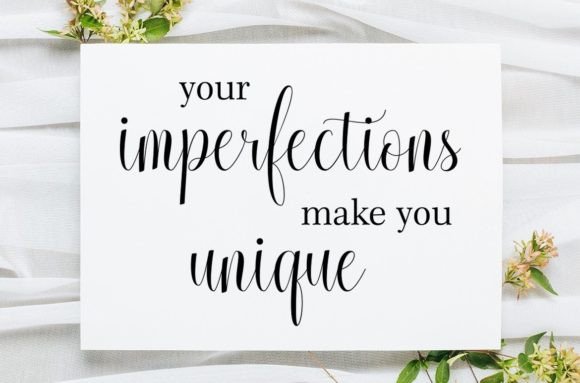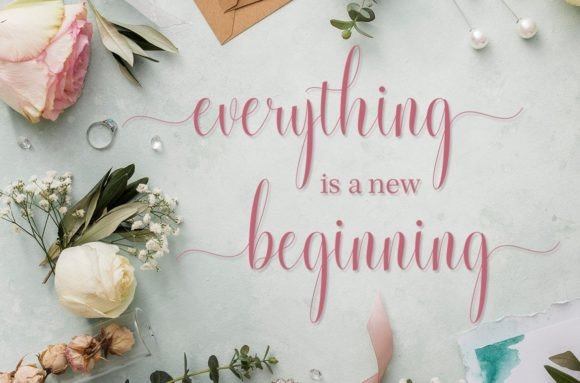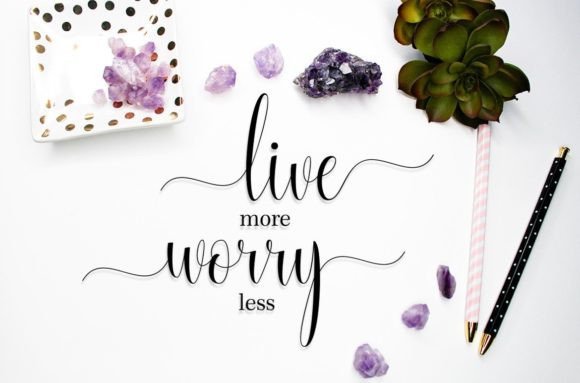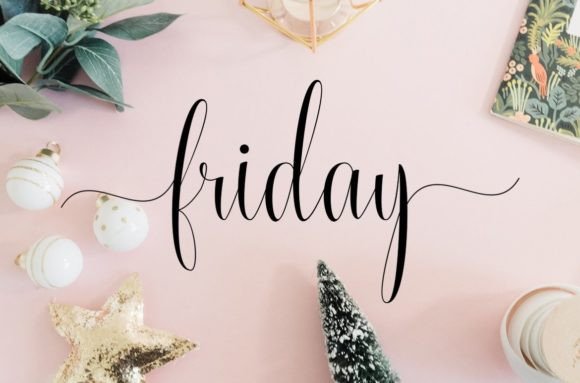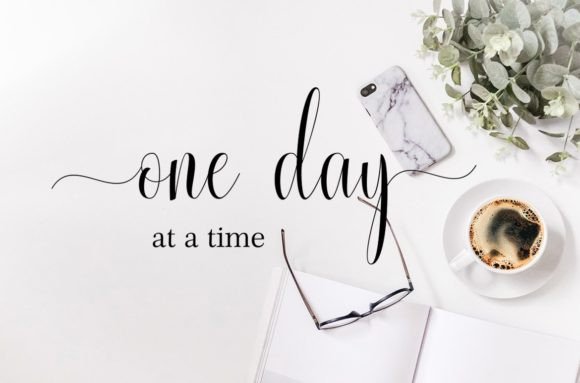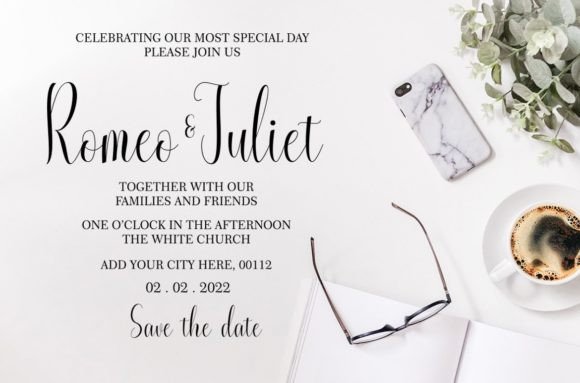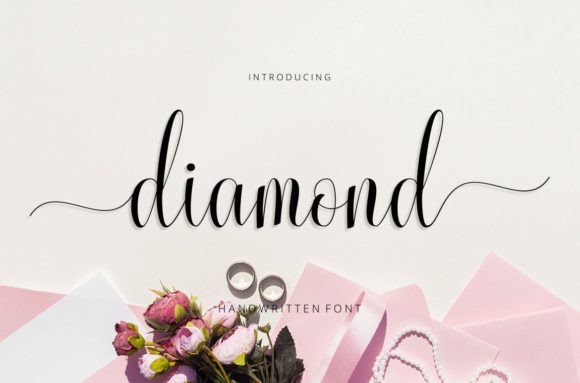
Diamond Font: Elevate Your Designs with a Touch of Elegance
Are you looking for a font that adds a touch of sophistication and whimsy to your designs? Look no further than the Diamond Font, a modern script font that is sure to elevate your creative projects. With its handmade calligraphy style, decorative characters, and dancing baseline, Diamond Script is the perfect choice for designers and crafters who want to add a touch of elegance to their work.
What is Diamond Font?
Diamond Script is a new, fresh, and modern script font that is designed to add a touch of whimsy and romance to your designs. With its handmade calligraphy style, this font is perfect for creating beautiful and unique designs that stand out from the crowd. The font features decorative characters, a dancing baseline, and a range of glyphs and ligatures that can be accessed with ease thanks to its PUA encoding.
Key Features of Diamond Font
- Handmade Calligraphy Style: Diamond Script features a beautiful, handmade calligraphy style that adds a touch of elegance and sophistication to your designs.
- Decorative Characters: The font features a range of decorative characters, including swashes, flourishes, and ligatures, that can be used to add a touch of whimsy and romance to your designs.
- Dancing Baseline: The font’s dancing baseline adds a touch of movement and energy to your designs, making them more visually appealing.
- PUA Encoding: Diamond Script is PUA encoded, which means that you can access all of the amazing glyphs and ligatures with ease.
Uses for Diamond Font
Diamond Script is a versatile font that can be used for a wide range of design projects, including:
- Invitations: Use Diamond Script to create beautiful and elegant invitations for weddings, parties, and other special occasions.
- Greeting Cards: The font is perfect for creating greeting cards for birthdays, holidays, and other special occasions.
- Branding Materials: Use Diamond Script to create unique and eye-catching branding materials, such as logos, business cards, and letterheads.
- Quotes and Posters: The font is perfect for creating inspiring quotes and posters that feature a touch of elegance and sophistication.
Benefits of Using Diamond Font
There are many benefits to using Diamond Script in your designs, including:
- Unique and Eye-Catching Designs: The font’s handmade calligraphy style and decorative characters make it perfect for creating unique and eye-catching designs that stand out from the crowd.
- Easy to Use: Diamond Script is PUA encoded, which makes it easy to access all of the amazing glyphs and ligatures.
- Versatile: The font can be used for a wide range of design projects, from invitations and greeting cards to branding materials and posters.
Tips for Using Diamond Font
Here are a few tips for using Diamond Script in your designs:
- Experiment with Different Sizes and Colors: The font looks great in a range of sizes and colors, so don’t be afraid to experiment and find the perfect combination for your design.
- Use the Font’s Decorative Characters: The font’s decorative characters, such as swashes and flourishes, can add a touch of whimsy and romance to your designs.
- Pair with Other Fonts: Diamond Script looks great when paired with other fonts, so don’t be afraid to experiment and find the perfect combination for your design.
Diamond Script is a beautiful and versatile font that is perfect for designers and crafters who want to add a touch of elegance and sophistication to their designs. With its handmade calligraphy style, decorative characters, and dancing baseline, this font is sure to elevate your creative projects and make them stand out from the crowd.